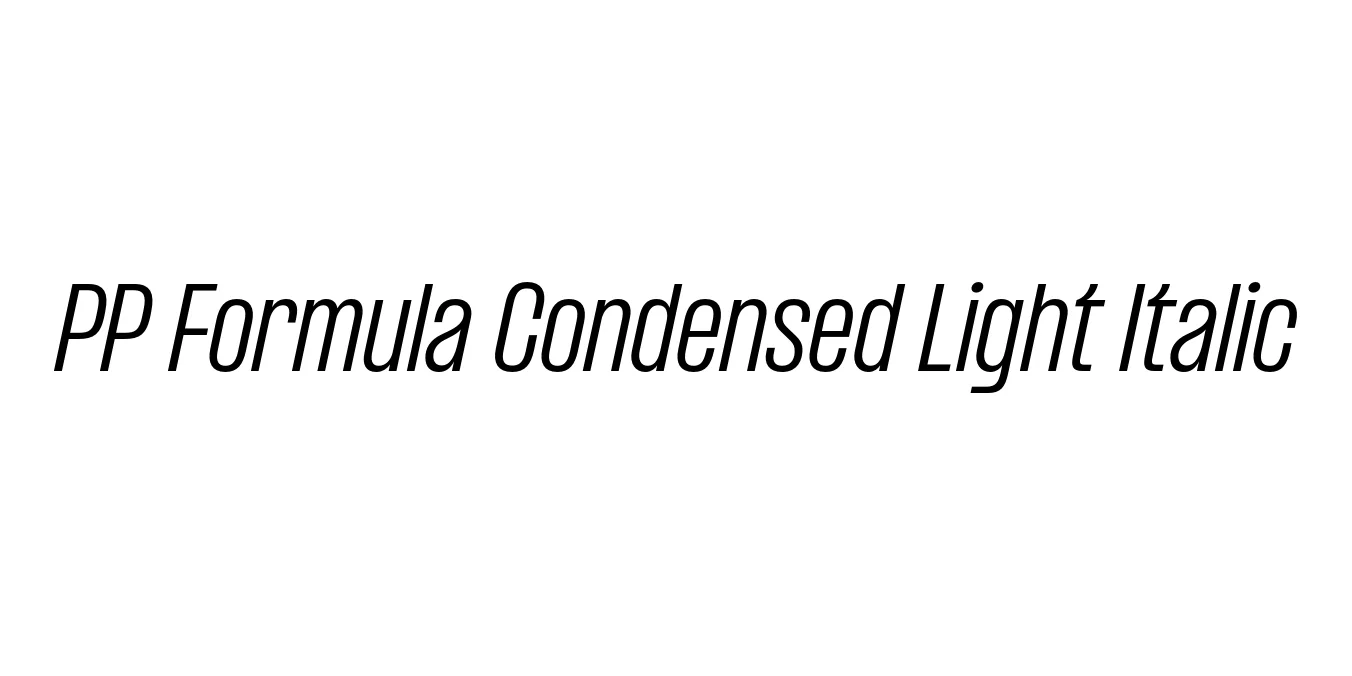
PP Formula Condensed Light Italic
Designed by Mathieu Desjardins
PP Formula Condensed Light Italic is an integral part of the expansive and versatile Formula typeface family developed by Mathieu Desjardins at Pangram Pangram. This specific variant balances a slim, space-efficient condensed footprint with the delicate touch of a light weight and the kinetic energy of an italic slant. It is designed to bridge the gap between technical utility and high-fashion aesthetics, making it a powerful tool for modern designers looking for a sophisticated edge.
The inspiration behind PP Formula stems from the utilitarian and high-performance world of the automotive industry and racing culture. Its sharp terminals and precise geometry reflect an industrial precision, while the condensed italic forms provide a sense of speed and forward motion. This makes it an exceptional choice for editorial layouts, branding, and digital environments where space is at a premium but style cannot be compromised.
PP Formula Condensed Light Italic Best Uses
Perfect for sophisticated magazine headlines and high-fashion pull quotes.
Excellent for space-saving hero sections and dynamic navigation menus.
Ideal for tech, luxury, or automotive brands seeking a high-performance identity.